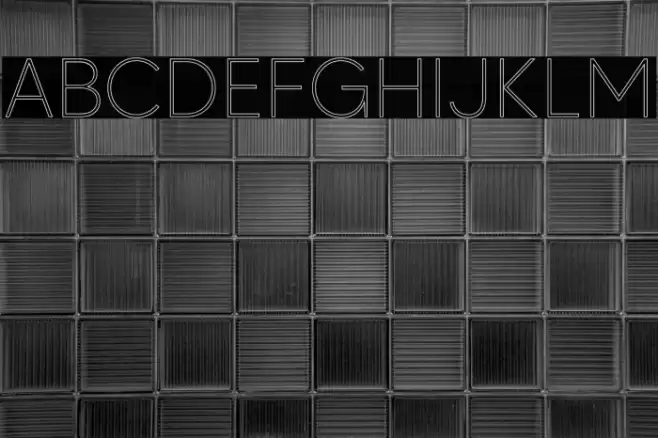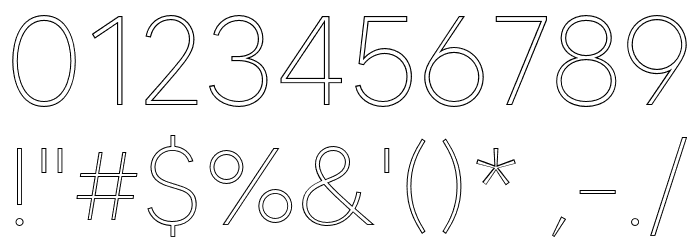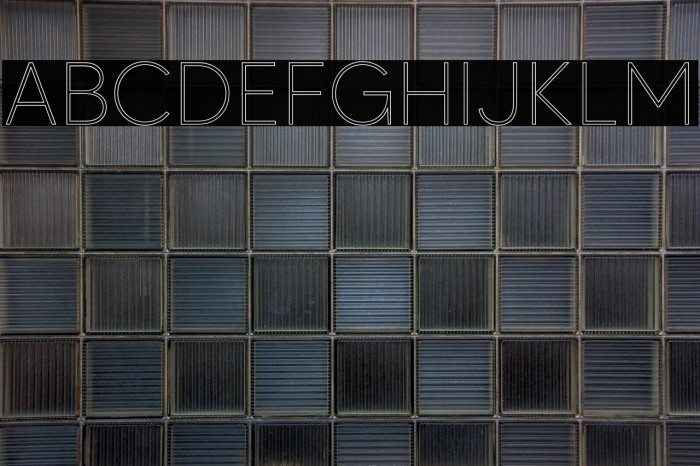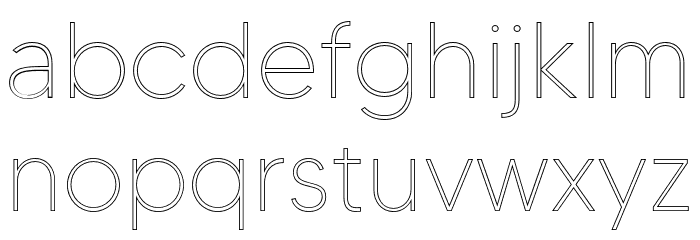
MADETOMMYOutline-Thin Font
MADETOMMYOutline-Thin Description
This font features a sleek, modern outline style with thin strokes that give it a minimalist and airy appearance. The characters are evenly spaced, maintaining a clean and organized look. The uppercase and lowercase letters are consistent in style, with smooth curves and straight lines that enhance readability. The numerals and special characters follow the same design principles, ensuring a cohesive overall aesthetic. This font is ideal for projects that require a contemporary and stylish touch, such as branding, advertising, and digital media.
A modern, thin outline font with a minimalist and airy design from Uncategorized fonts.
- Proposed Projects: Ideal for branding, advertising, digital media, and modern design projects.
- Weight: Light
- Use Case: Headlines, Logos, Digital Media